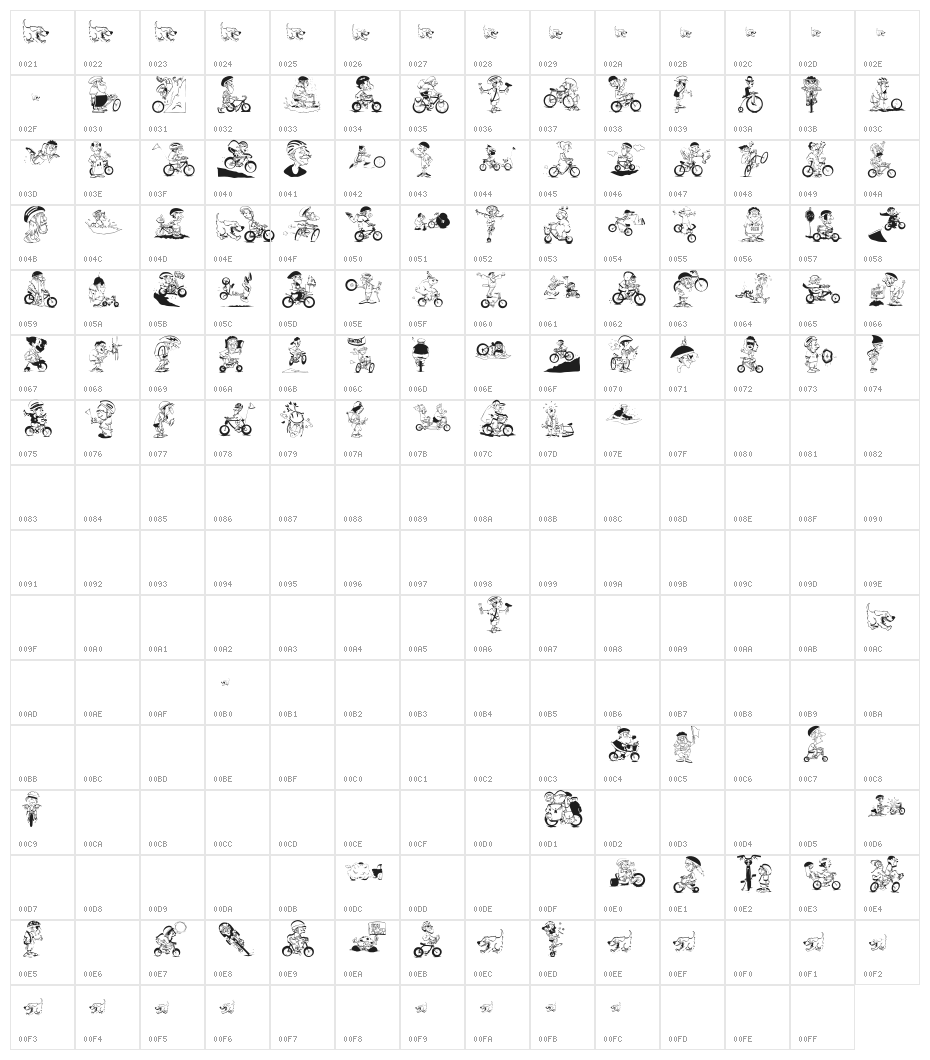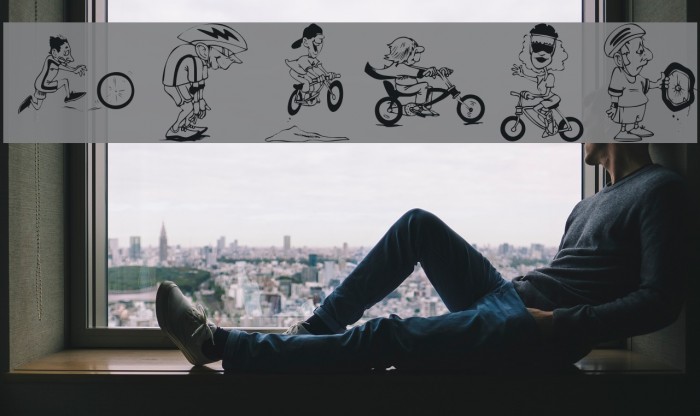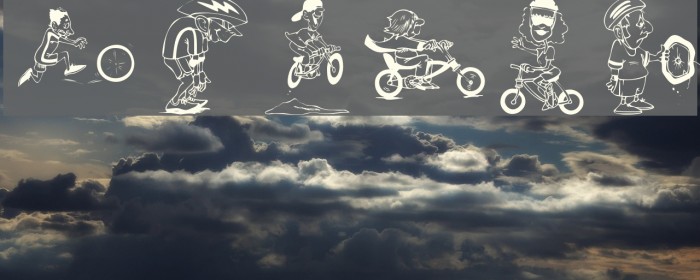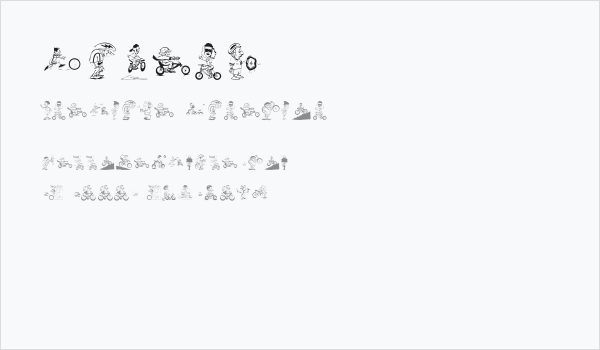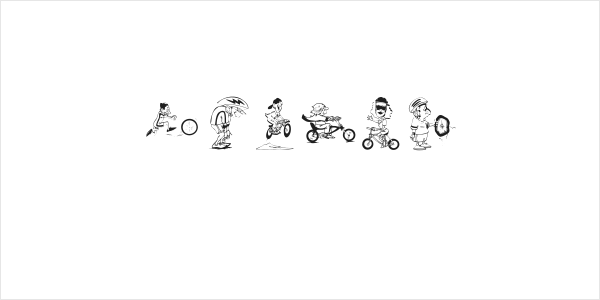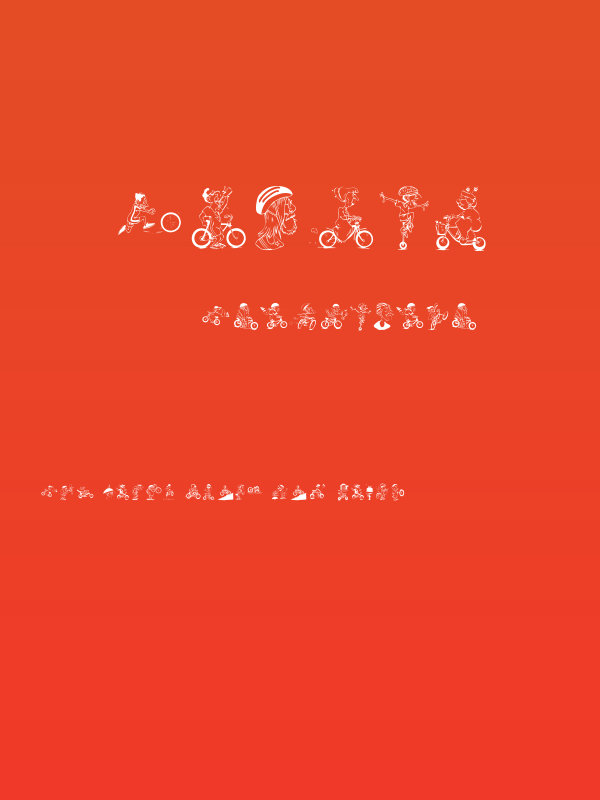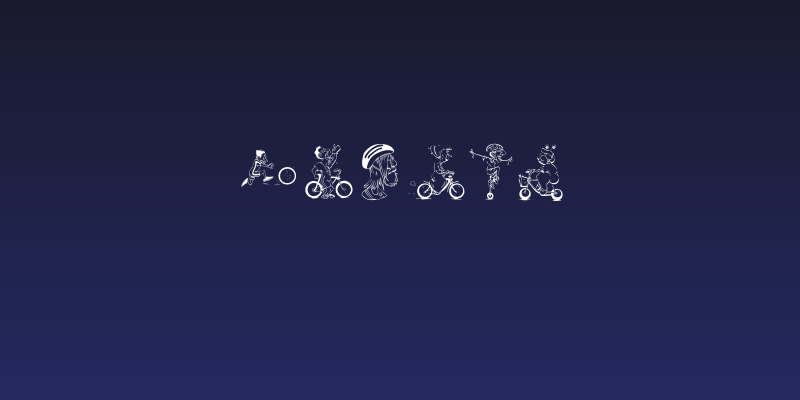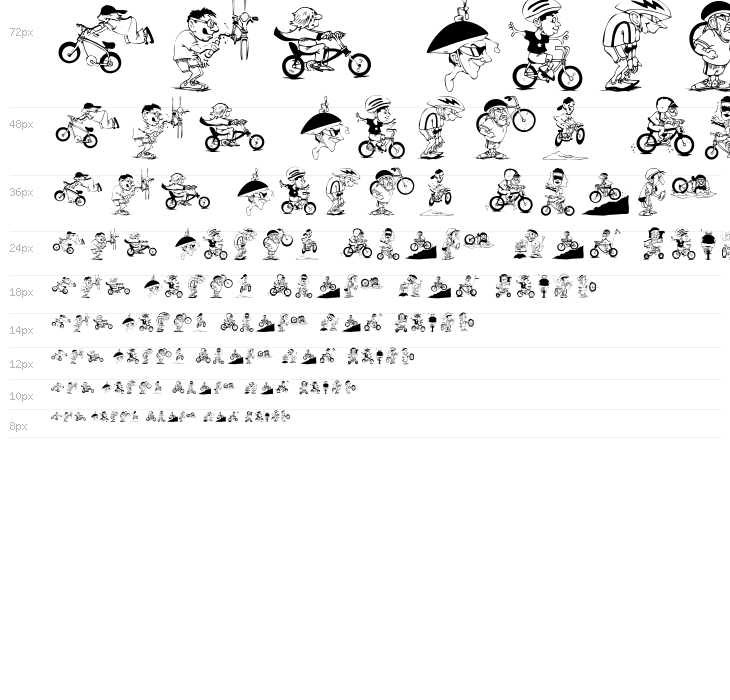
Bikers Font
Bikers Description
A playful, hand-drawn decorative font featuring whimsical cartoon characters riding bicycles, each letter and number represented by a unique illustration, conveying a sense of fun and movement.
| Overall Style | Playful, Whimsical, Decorative |
| Use Case | Headlines, Posters, Themed graphics, Children's materials |
| Proposed Projects | Children's books, event posters, playful branding, cycling event materials, greeting cards. |